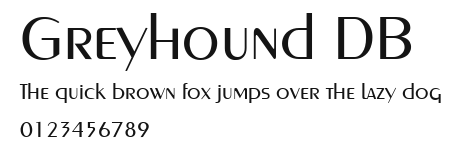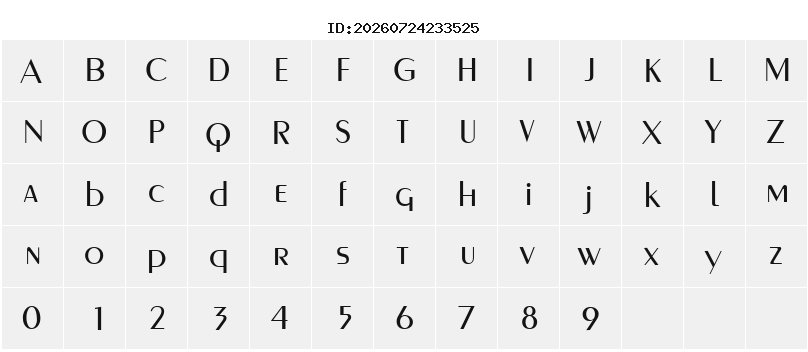
Greyhound DB Preview
• Font Name: Greyhound DB
• Full Font Name: Greyhound-Regular DB
About Greyhound DB.ttf
Greyhound DB.ttf is a modern, elegant sans-serif font designed for ultimate readability and visual harmony. Perfect for branding, headlines, web design, and print materials.